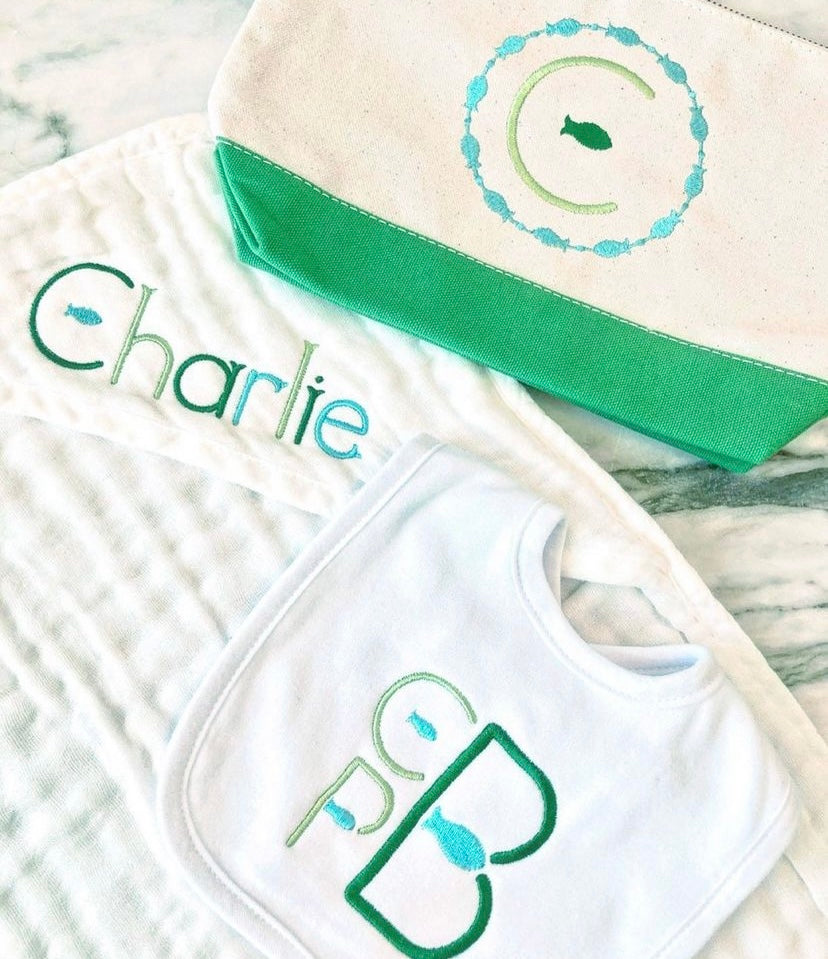
Single Minnow Font for Embroidery
Our Single Minnow Font is an amazing collection of 26 uppercase letters, 26 lowercase letters, numbers 0-9, a minnow with bubbles design, and two minnow frames. This fishy font features a minnow motif with the perfect fishtail ends on lowercase letters. This package includes:
Perfect for embroidery, the careful attention in the digitization of each design makes personalization unique and beautiful!